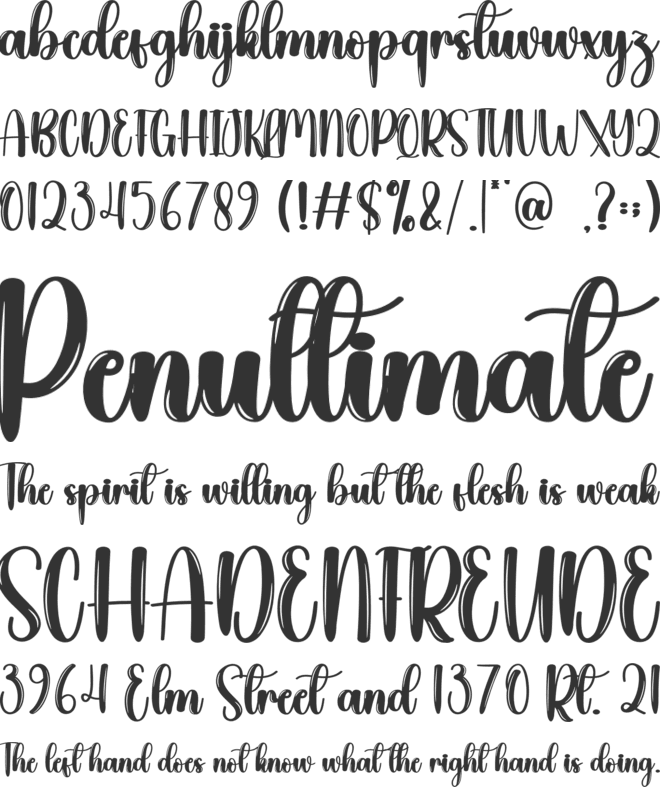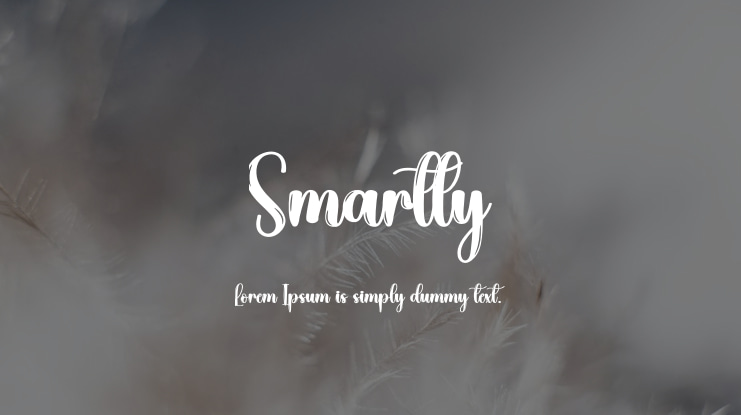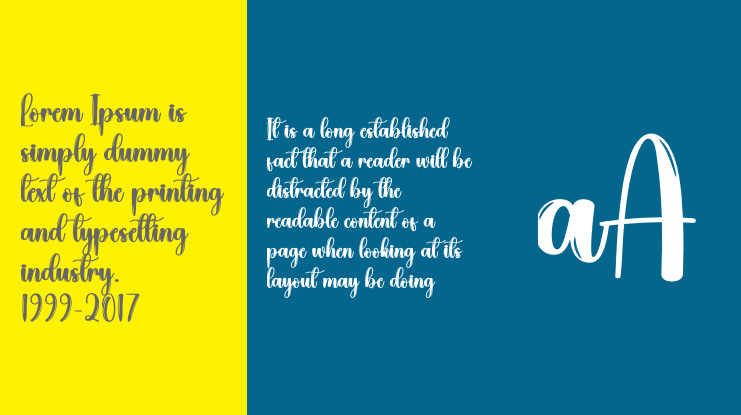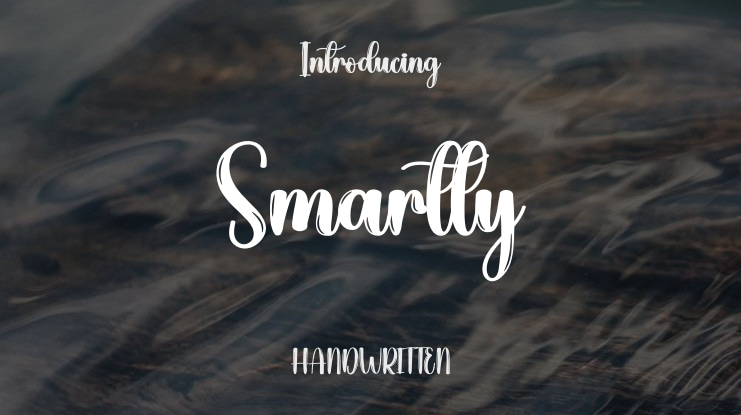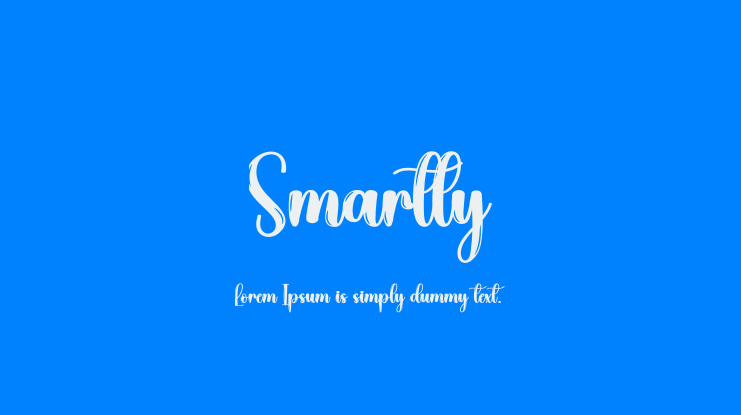
Smartly Font
Our latest style lettering is perfect for: - Wall displays - Wedding invitations - Social media post logos - Advertisements - Product packaging - Product designs - Labels - Photography watermarks - Invitations - Stationery - Any project that requires tasteful handwriting
Smartly font preview